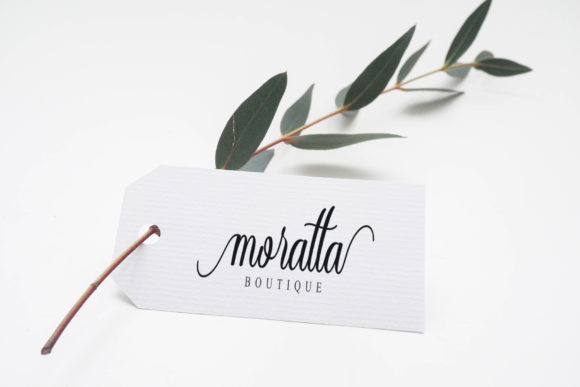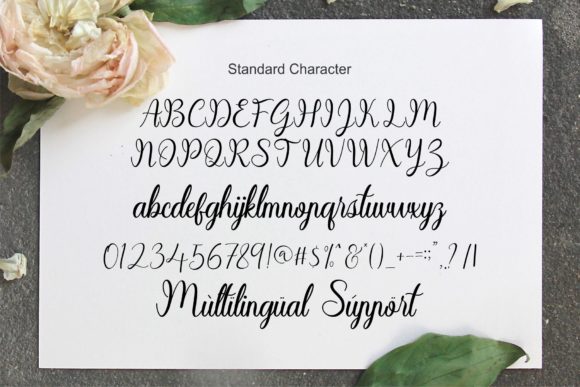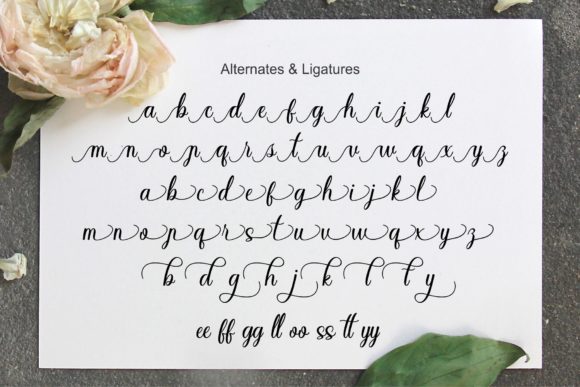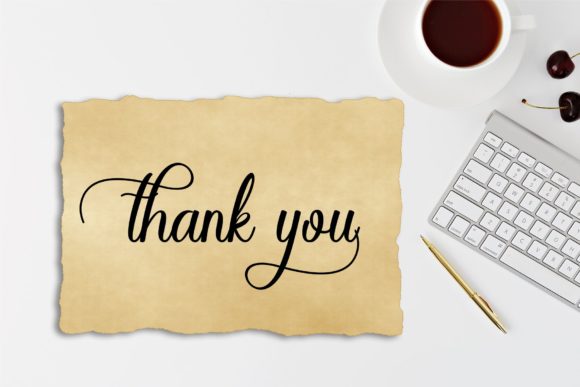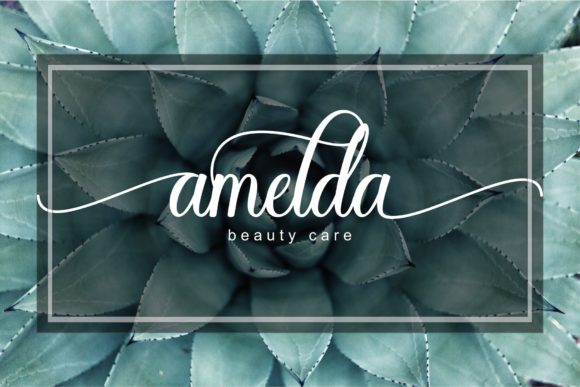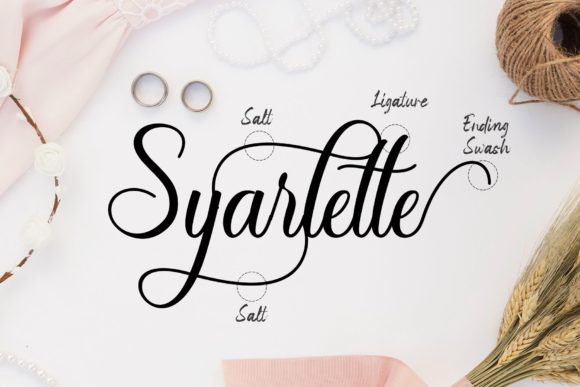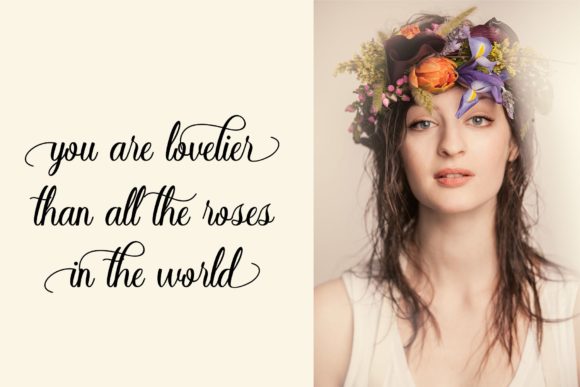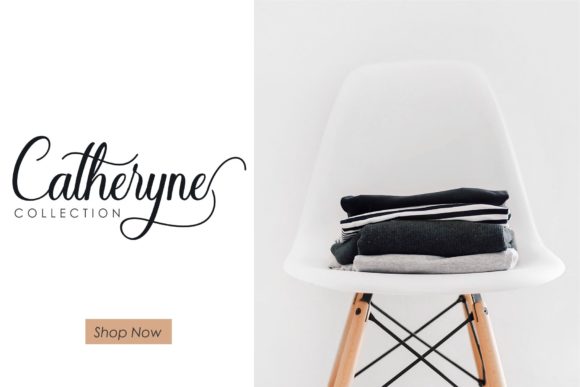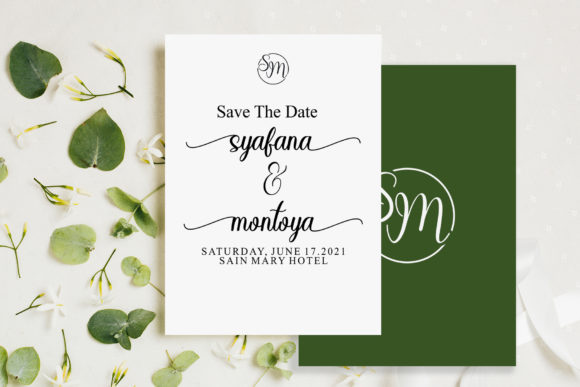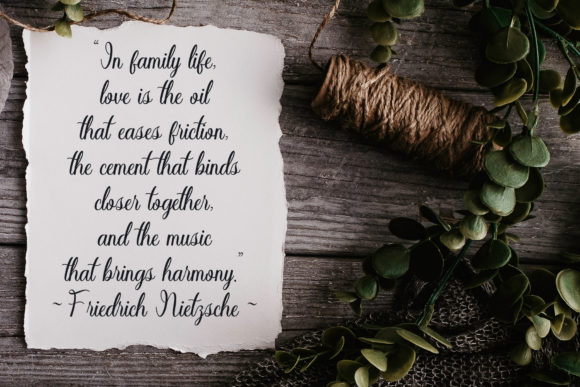
Sayidah Font
About Sayidah Font
Sayidah is a fun and charming handwritten font with a playful twist. Get inspired by its unique style, and turn any design idea into a true piece of art!